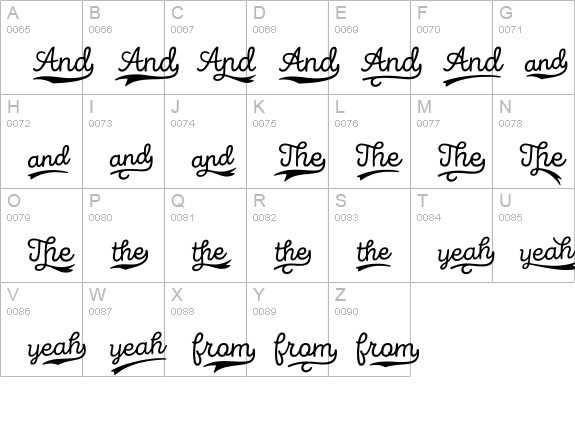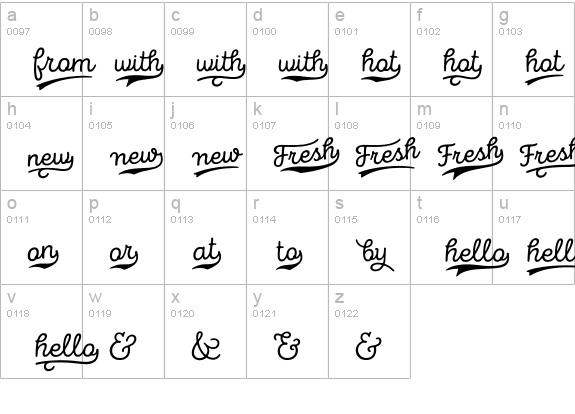
Introducing Intro Goodies Words font, a versatile and stylish typeface that will elevate your design projects to new heights. This font features a unique blend of modern and classic elements, making it perfect for a wide range of applications. With its clean lines and elegant curves, Intro Goodies Words font exudes sophistication and charm. What makes this font even more appealing is that it is available for free download at FontsMarket.com. Yes, you read that right - you can enjoy all the benefits of this stunning font without spending a dime. Whether you're working on a logo, poster, website, or any other creative project, Intro Goodies Words font is sure to make a lasting impression. Don't miss out on this opportunity to enhance your designs with a high-quality font that is both stylish and free to use. Download Intro Goodies Words font today and take your projects to the next level!